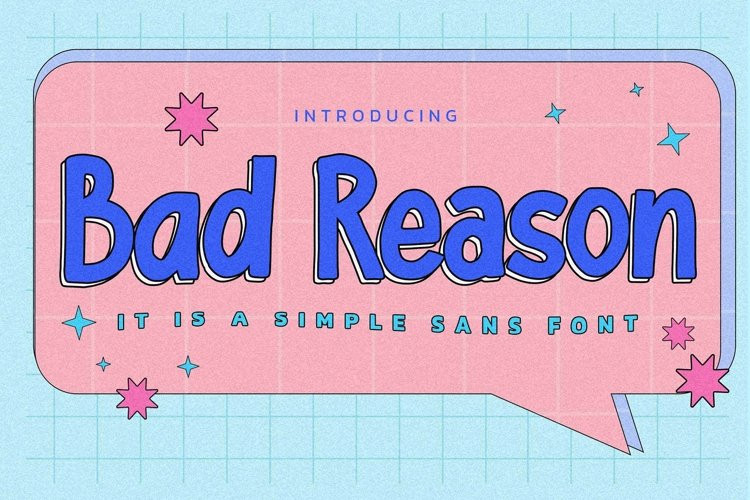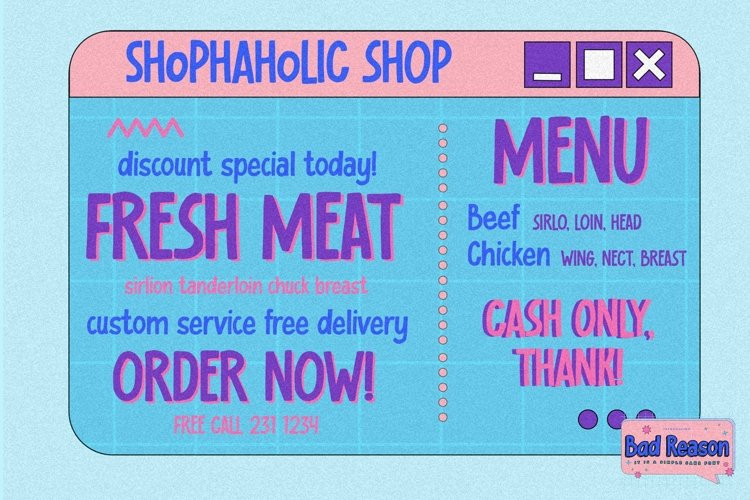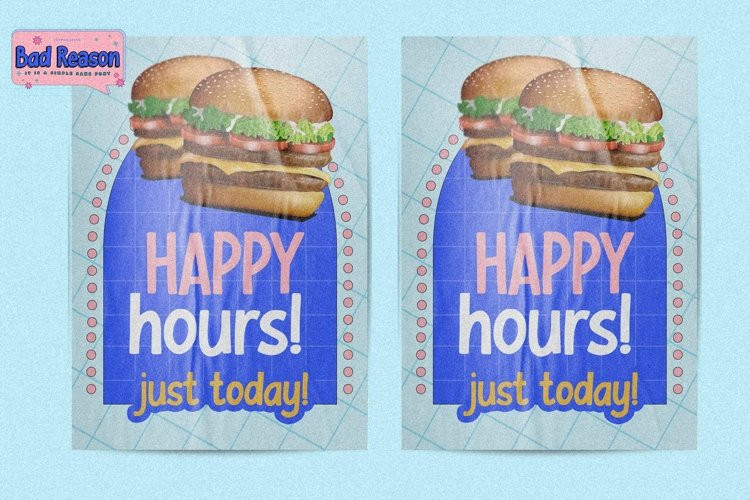
Bad Reason Font
Bad Reason FontHello Everyone, introduce our new product Bad Reason It Is Simple Sans Font with a natural feel. This handmade font will make your design has a beautiful natural touch for each details. It is perfect for any design project as Invitation,logo, book cover, craft or any design purposes.
Bad Reason is Inspired by Food Logo style and combination with Unique Craft style. that will fulfill your design needs for quotes,sporty theme, logotype, wordmark, etc. This has many opentype features and support multi language.